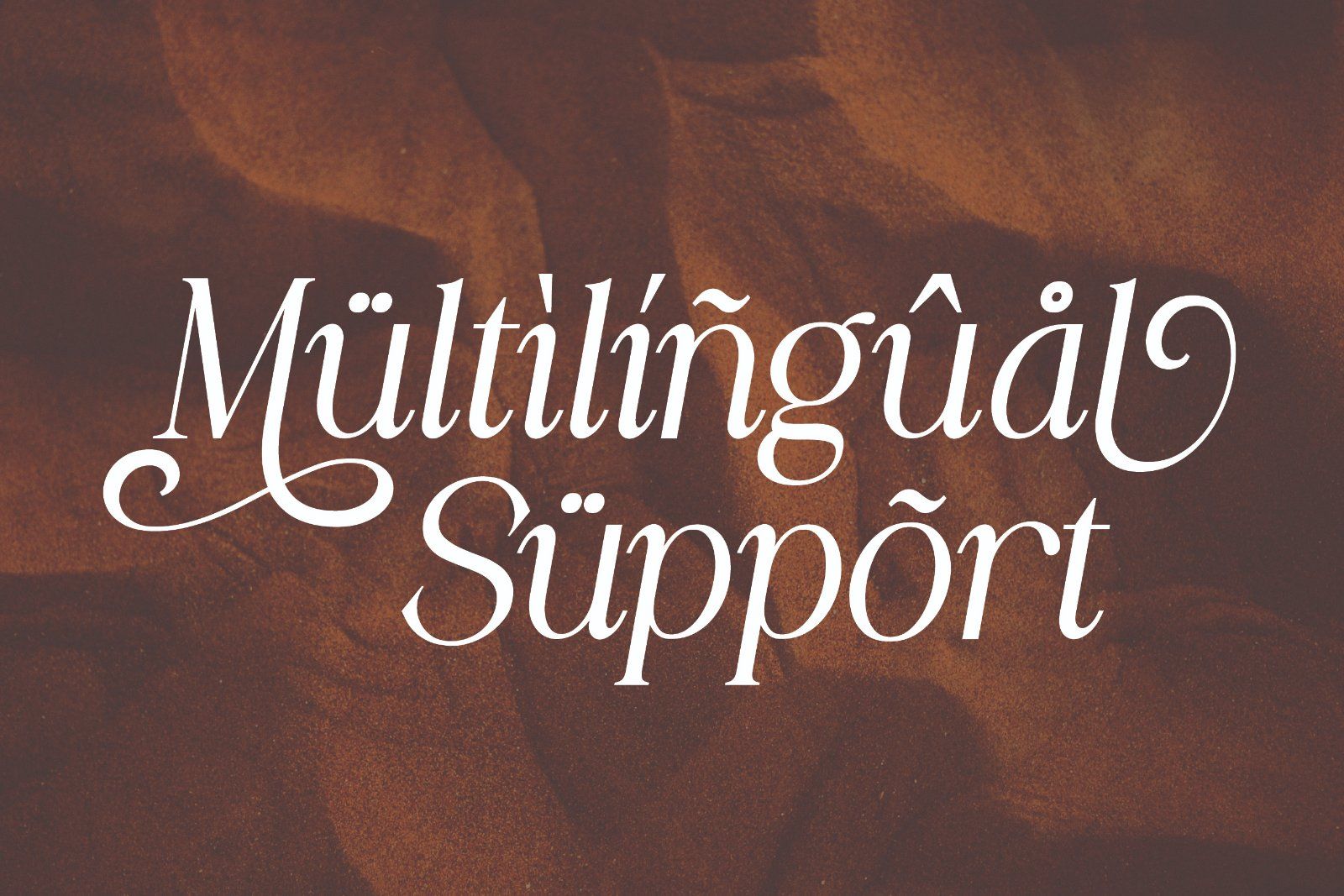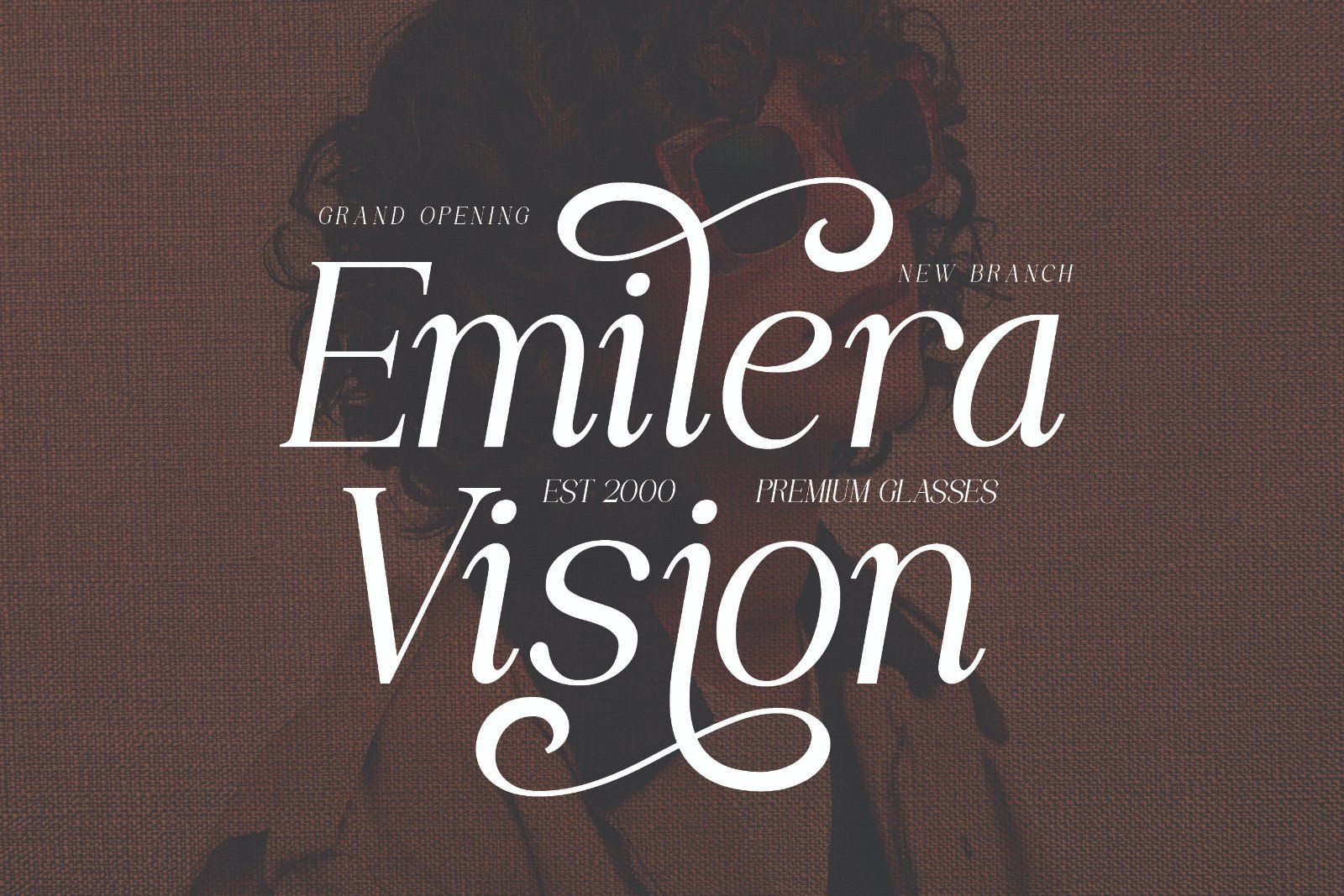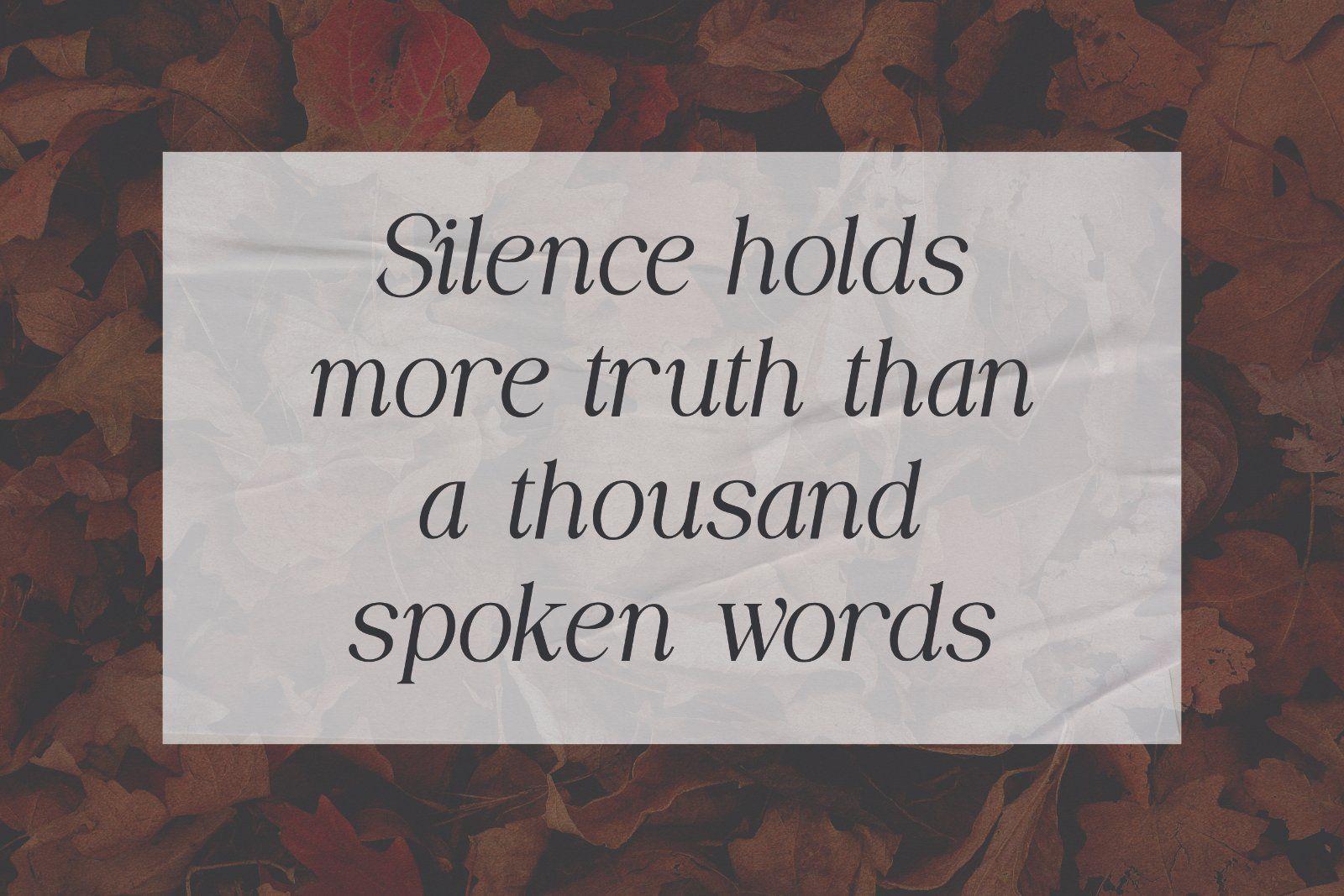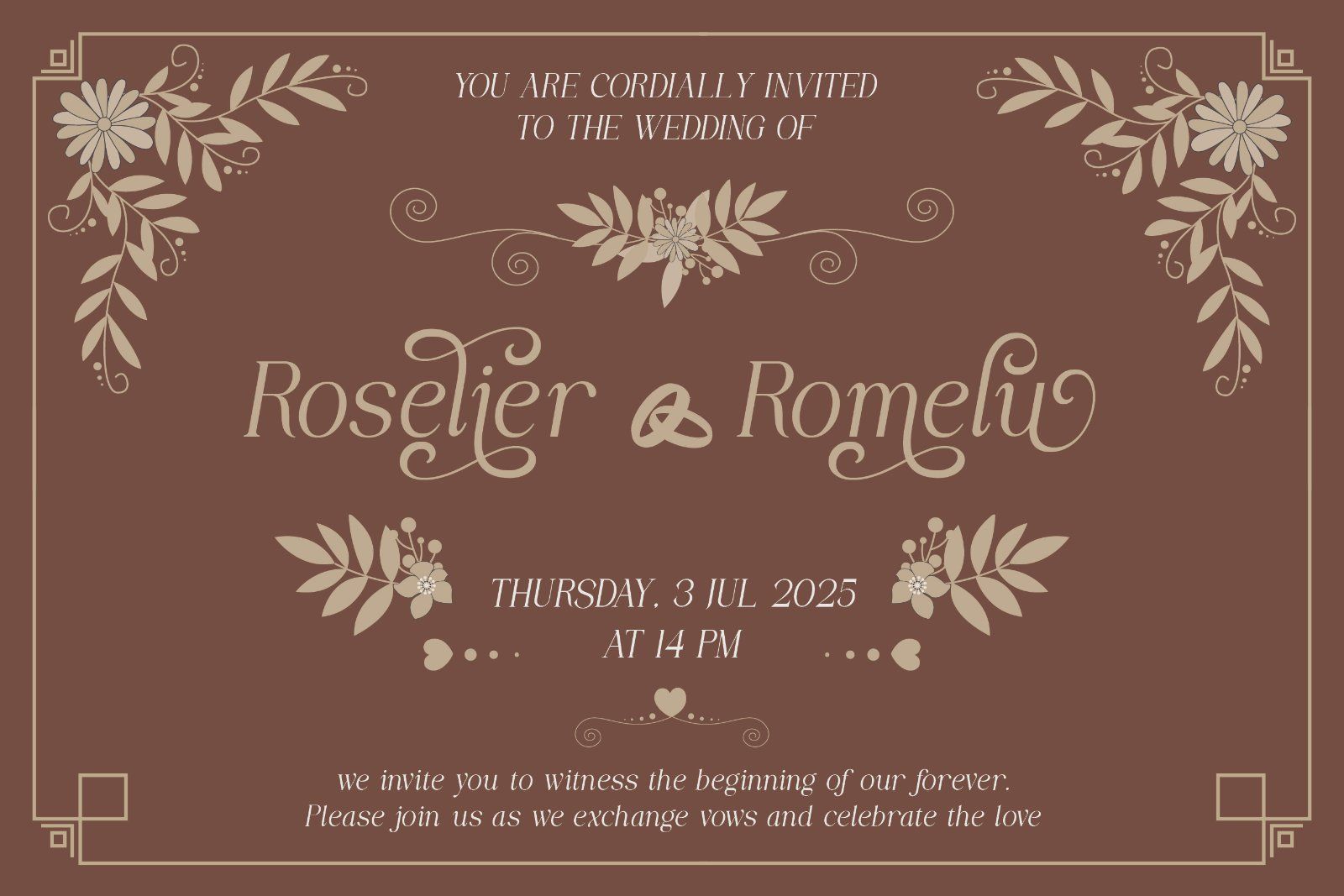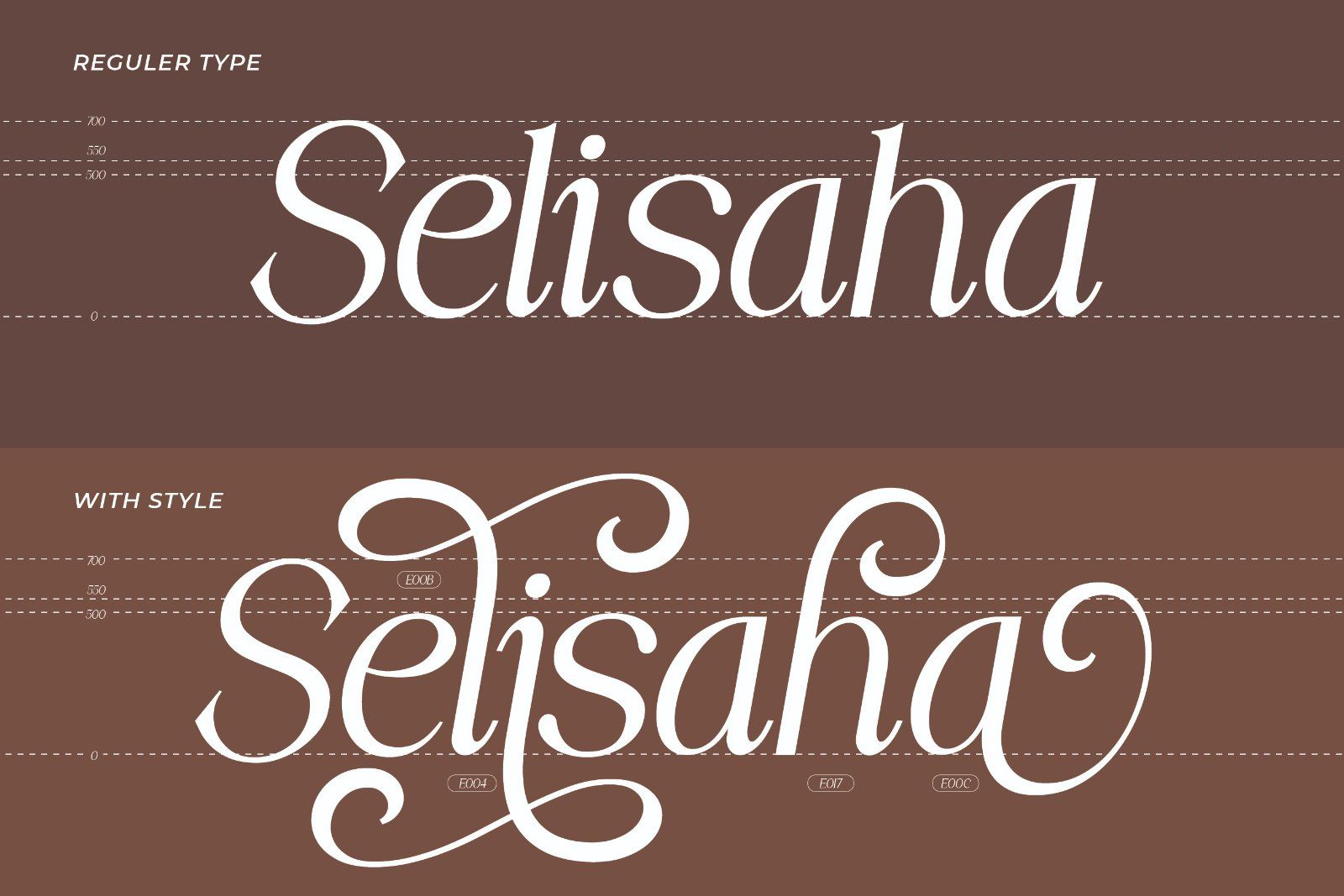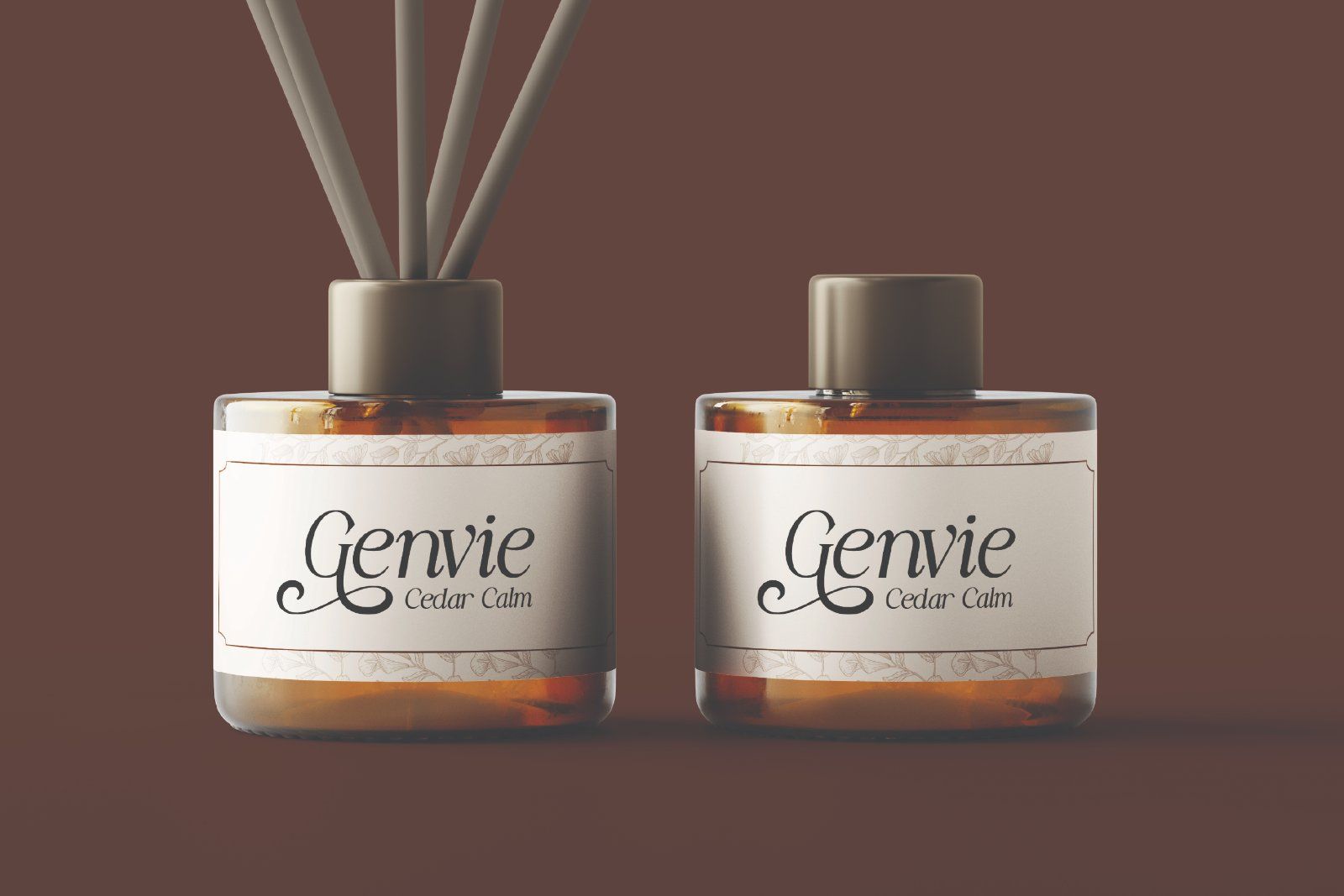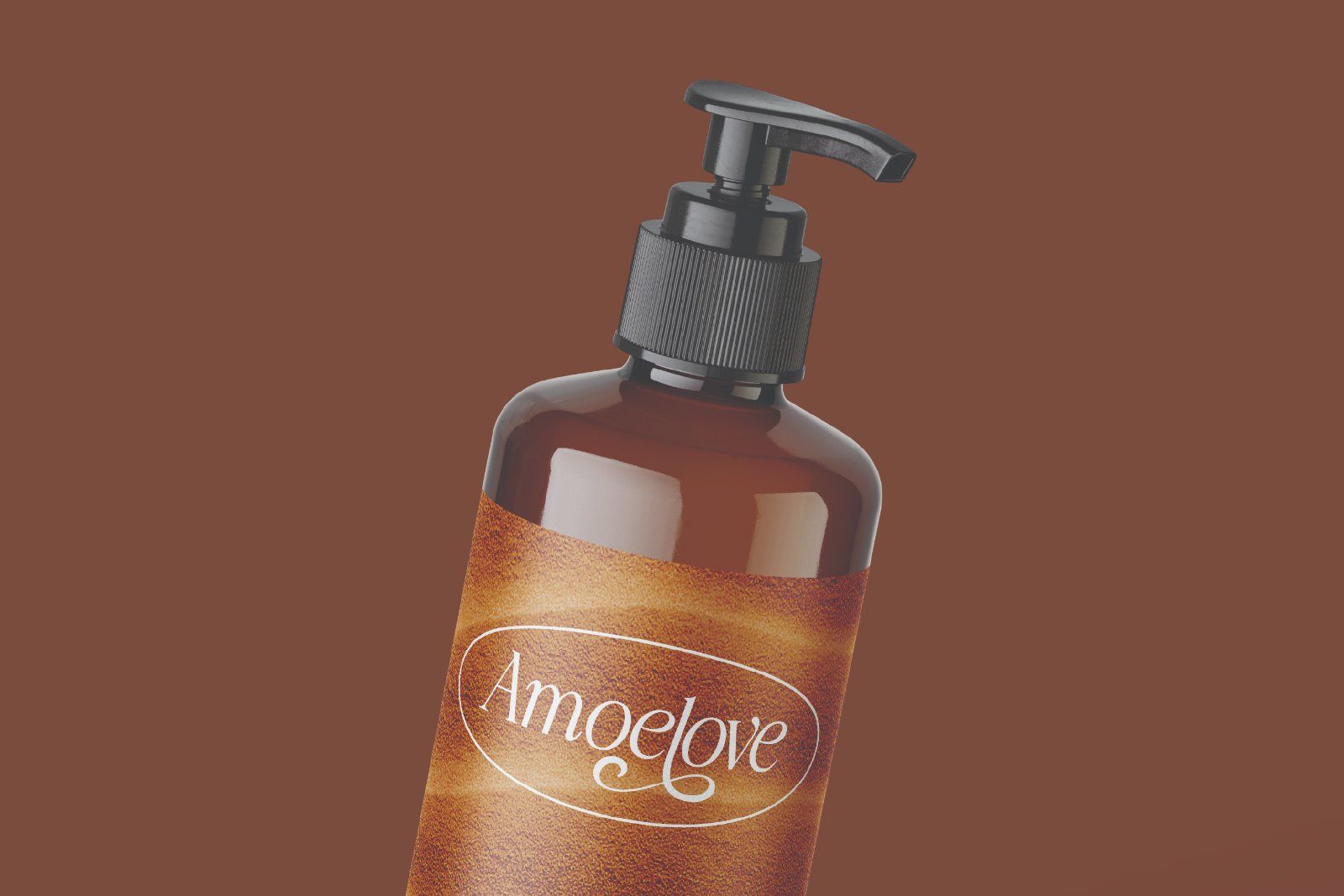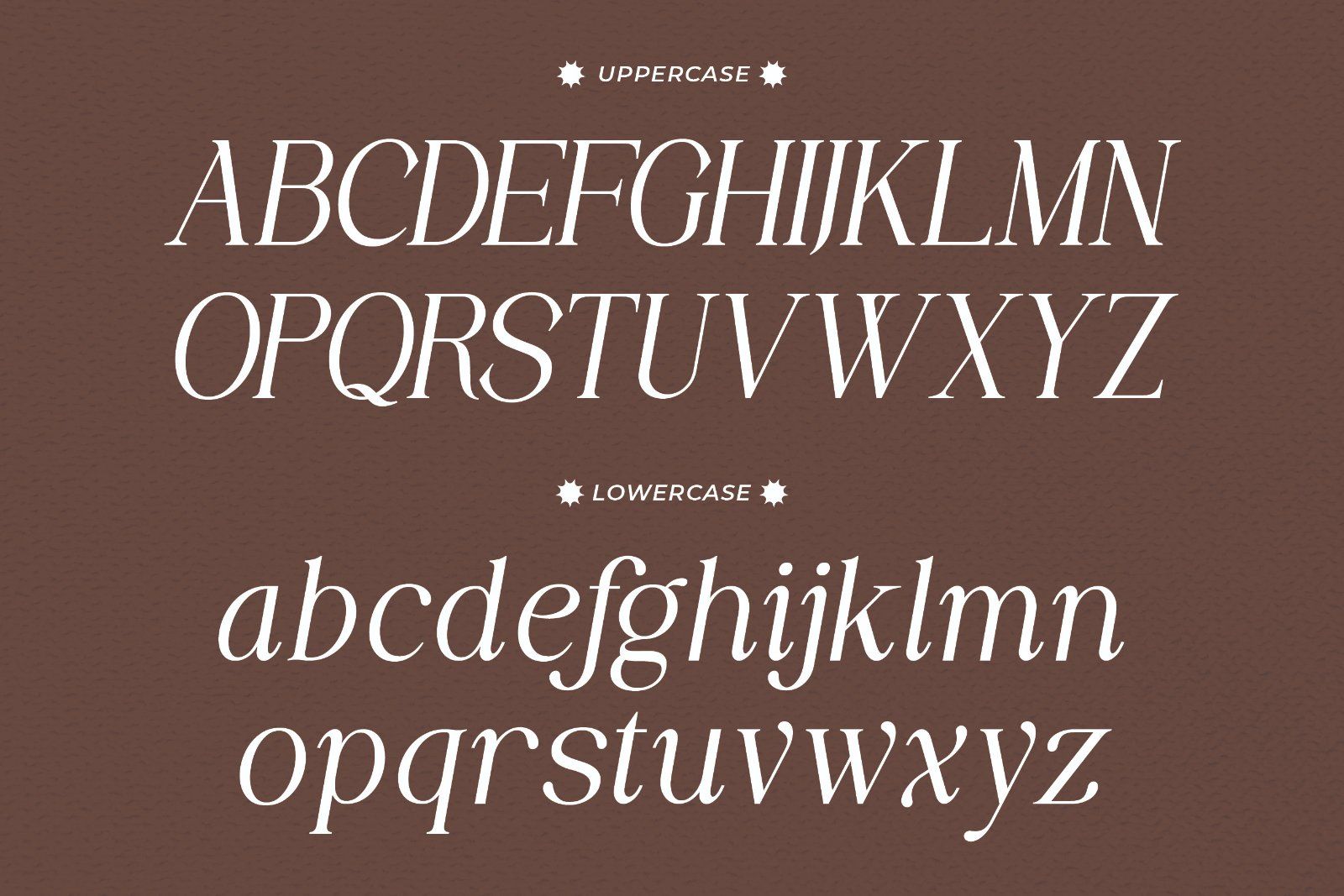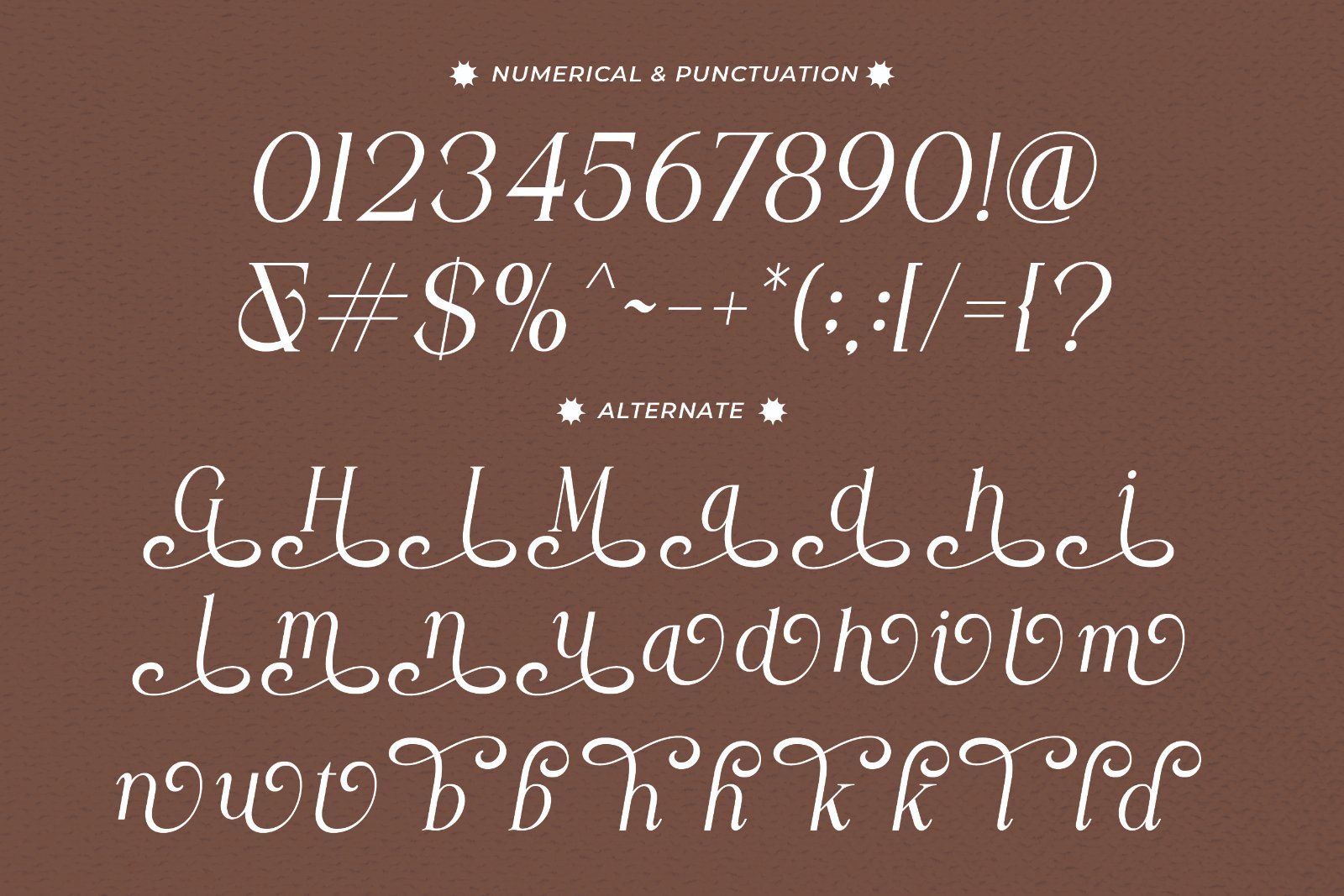
Morient is a graceful luxury italic typeface crafted for creators who value timeless beauty and elegance. With its delicate strokes, artistic swashes, and refined calligraphic forms, Morient captures a sense of romantic sophistication and high-end charm. Perfect for wedding branding, upscale logos, editorial designs, and premium packaging, Morient adds a touch of class and creative flair to every visual project.
• Uppercase alphabet A-Z
• Lowercase alphabet a-z
• Numbers 0-9
• Some punctuation
• Some Alternates and Ligatures